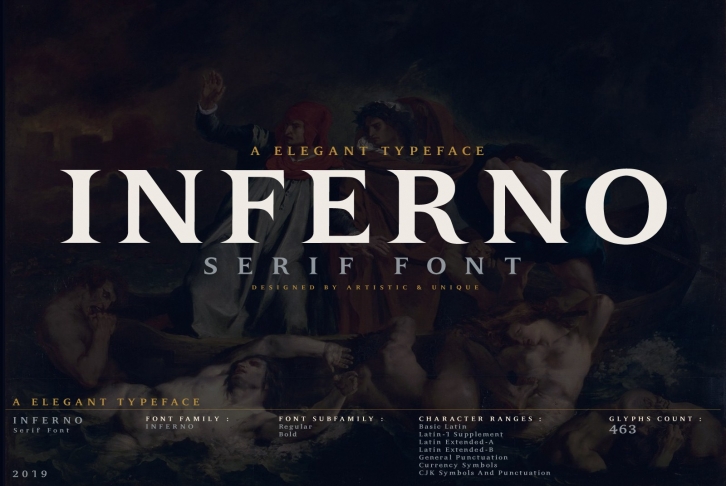
INFERNO Serif is a great font that was designed by ARTISTIC AND UNIQUE. Imagine the amount of combinations you can create using this font! The archive is 10.17 MB and it was released on December 27, 2019. INFERNO Serif looks beautiful on wedding invitations, greeting cards, logos, posters, labels, t-shirt designs, logos, business cards and is perfect for use in ink or watercolor works, fashion, magazines, packaging and food menus, children's books and more!